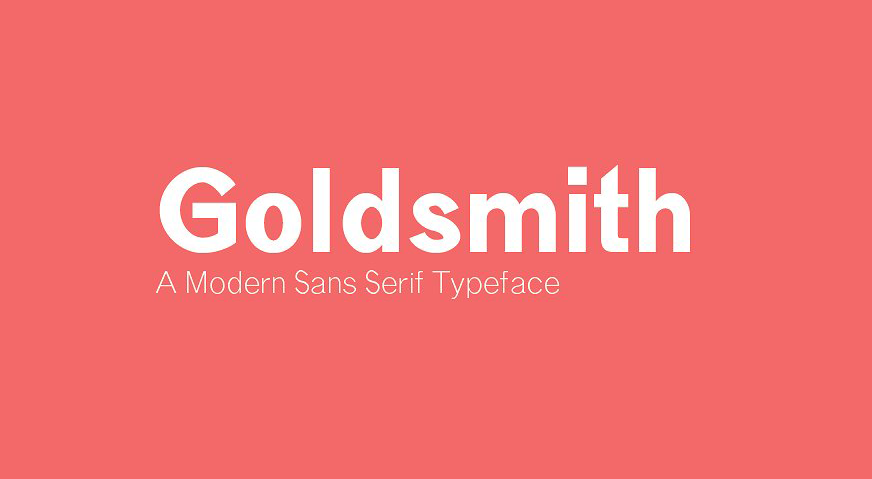
Goldsmith Font Family
Introducing Goldsmith. It is designed by Play Dead Studio, this is a premium font, are sold on creativemarket, but it was great, it is free today for download. Goldsmith is a brand new modern sans serif font. Perfect for everything from branding to editorial, the options are limitless. This product includes 6 weights.